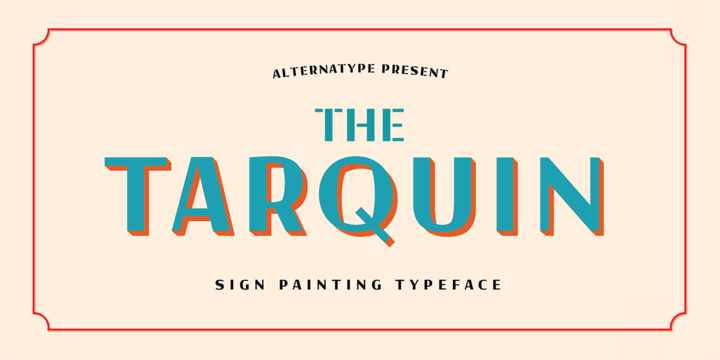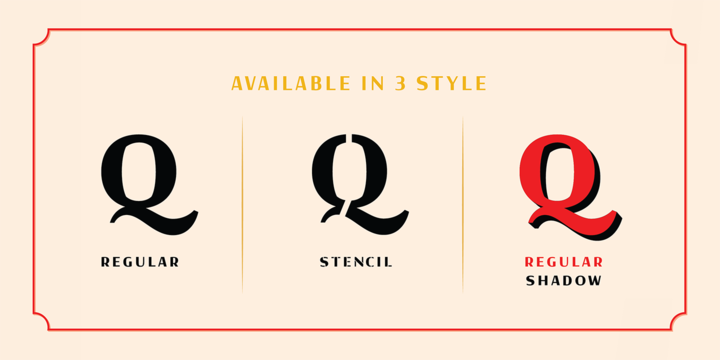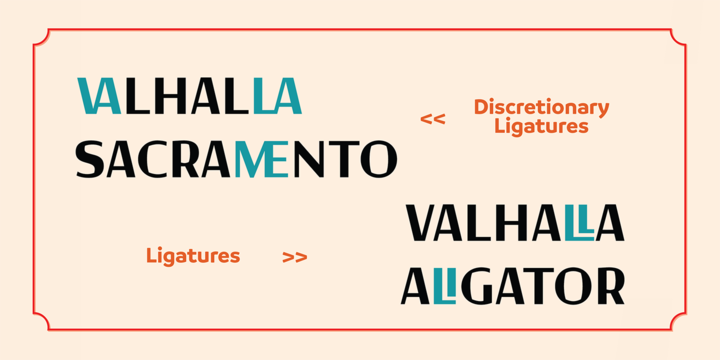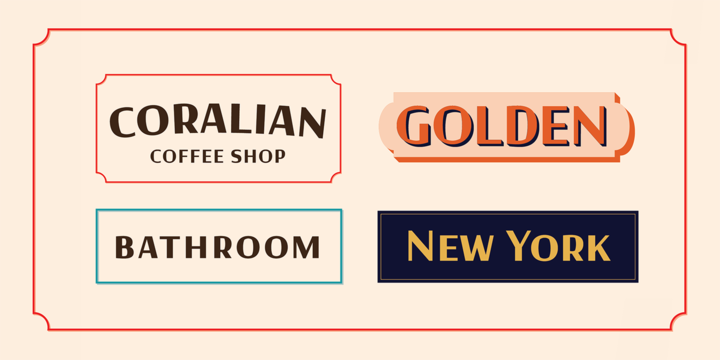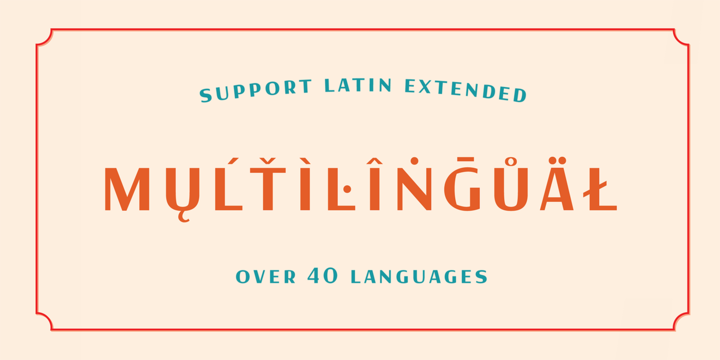
Tarquin AT Font Family
About this font family
Tarquin is a All-Caps sanserif typeface, inspired by the beautiful hand-painted sign.
It has a strong personality, high contrast stem, and widely opened counter to improve the readibility as it designed for display purposes.
It’s available in 3 different style, REGULAR, STENCIL, and SHADOW designed for display purpose design Crafted beautifully and carefully with hand.